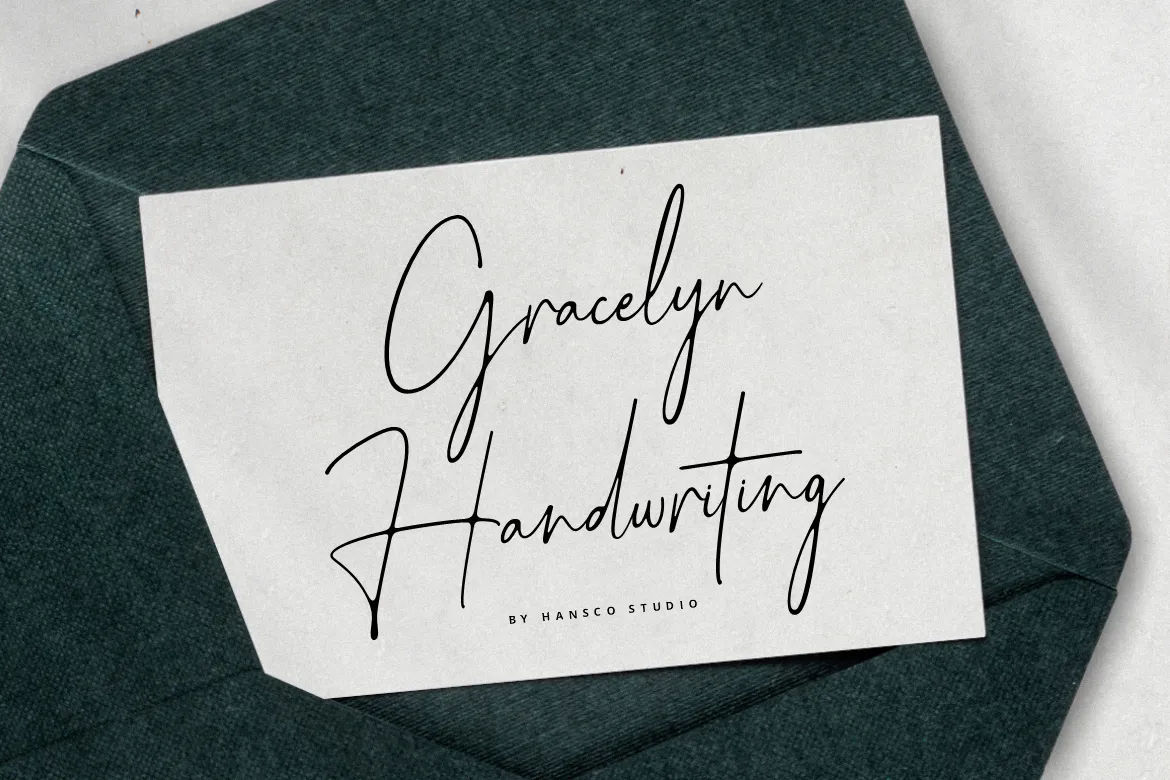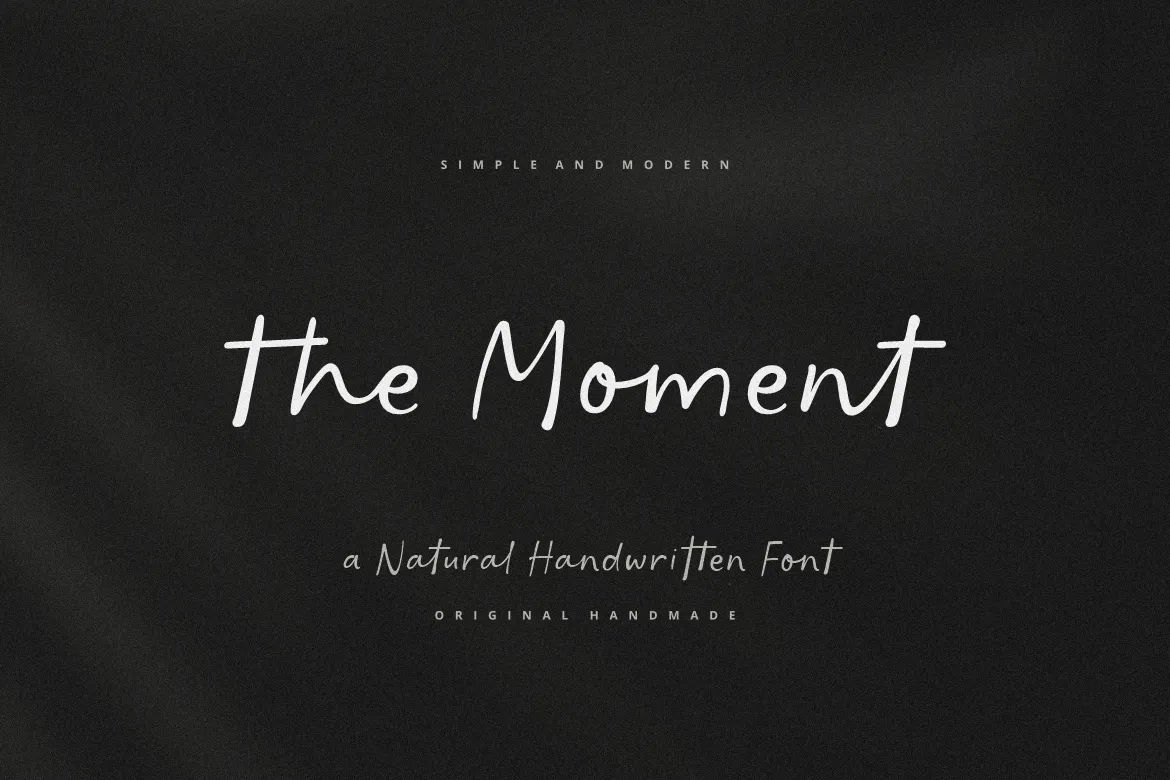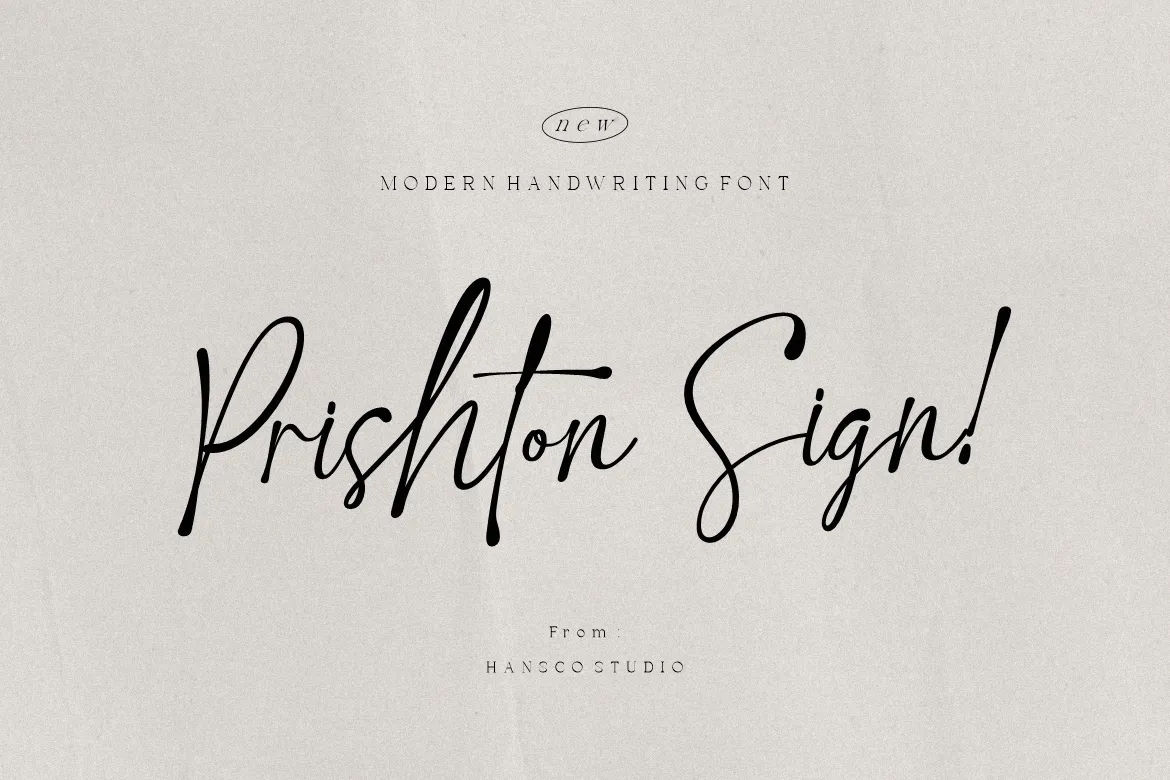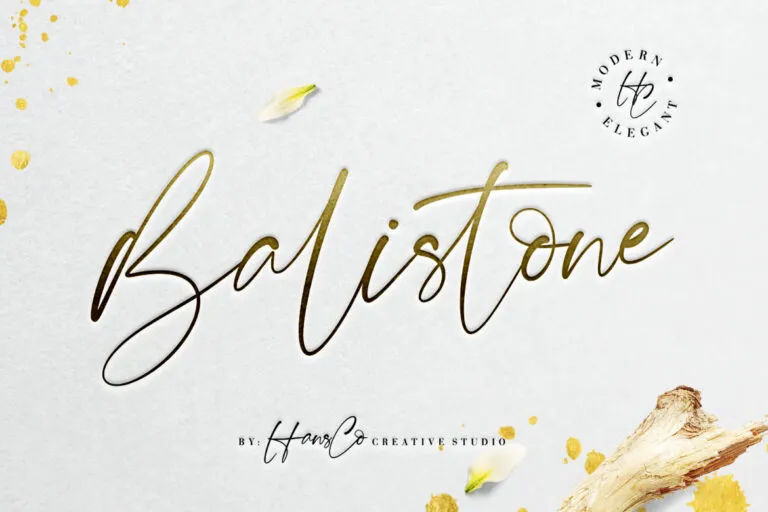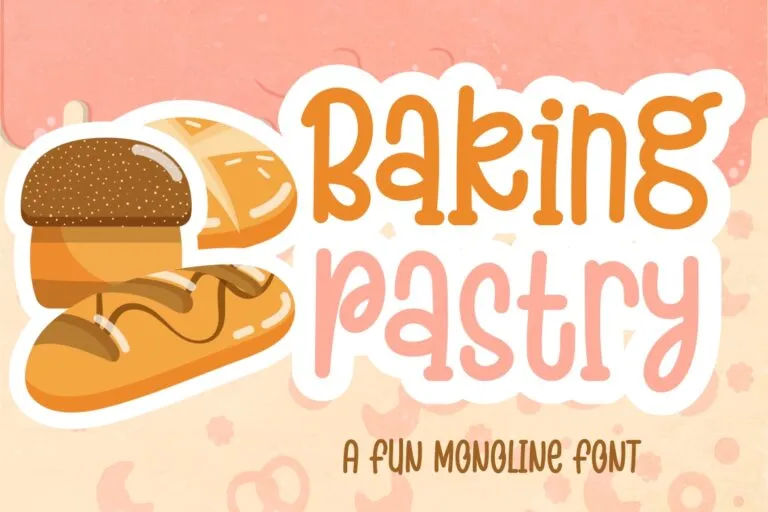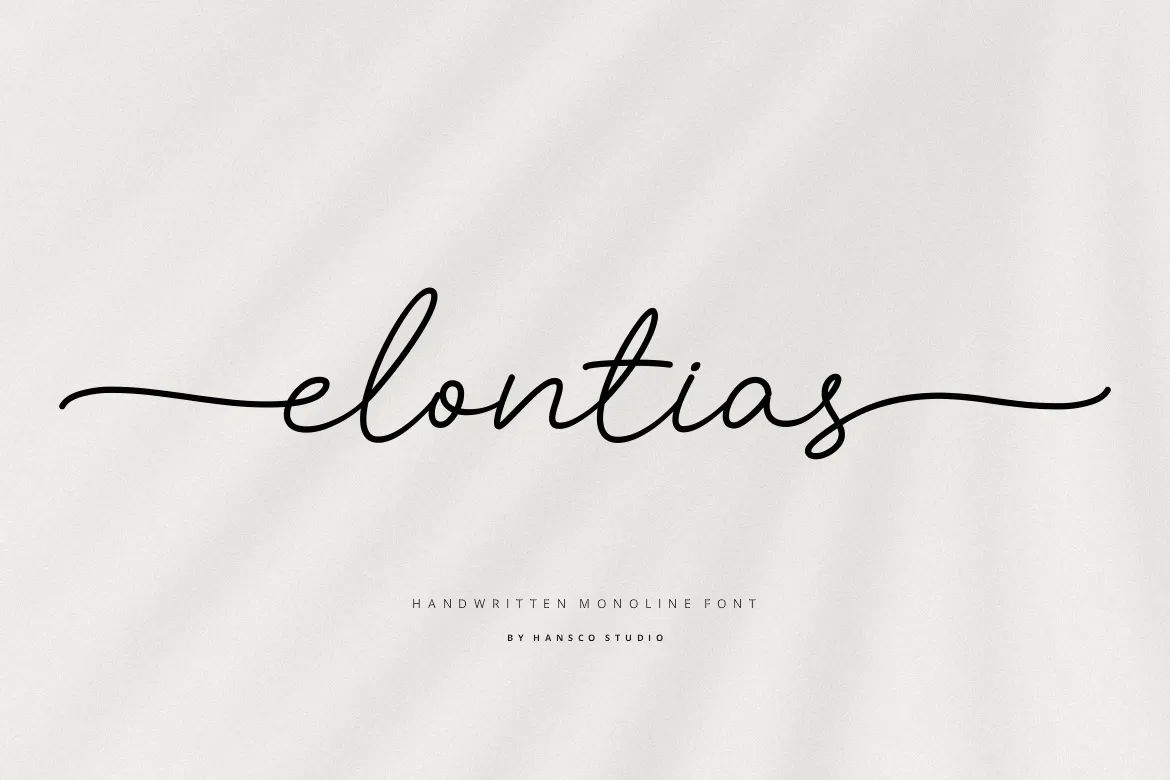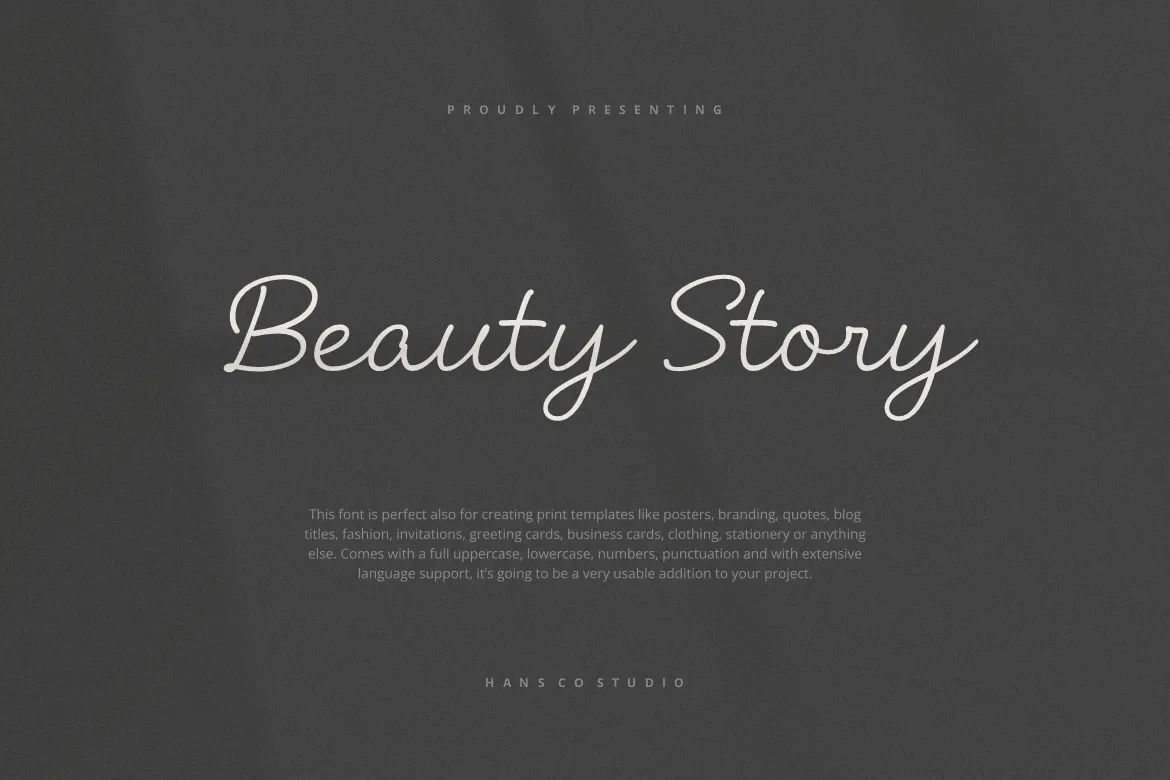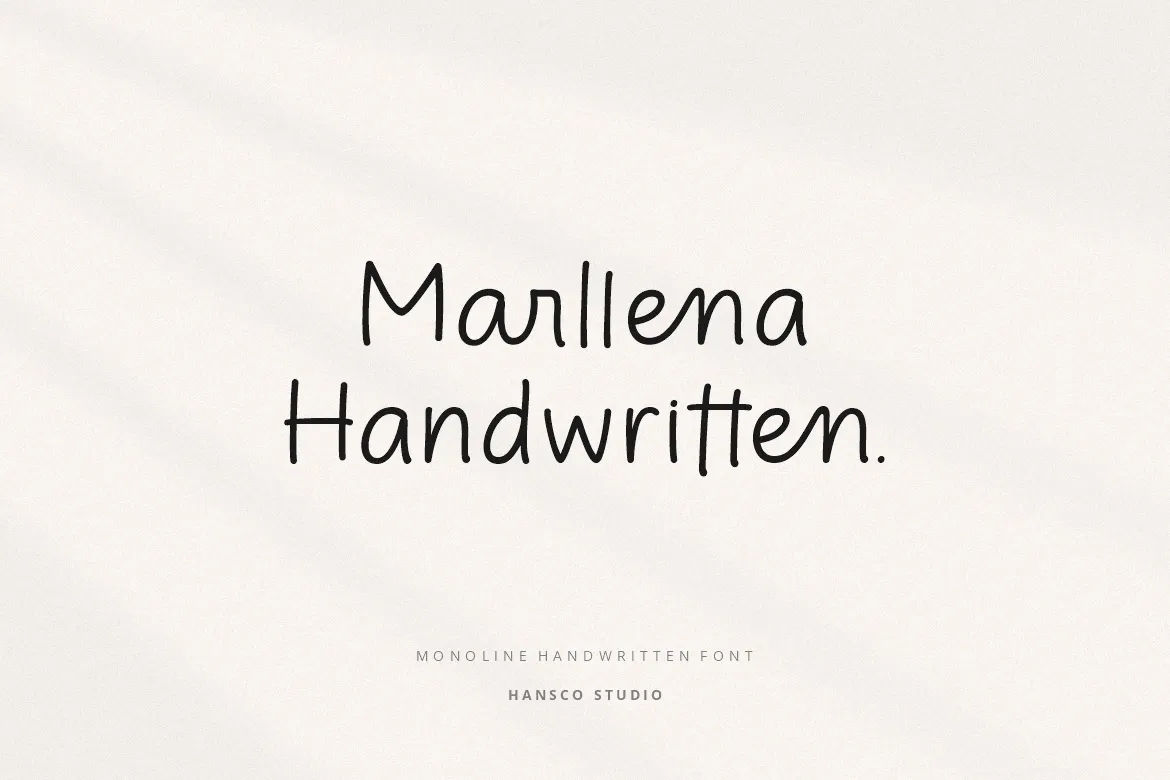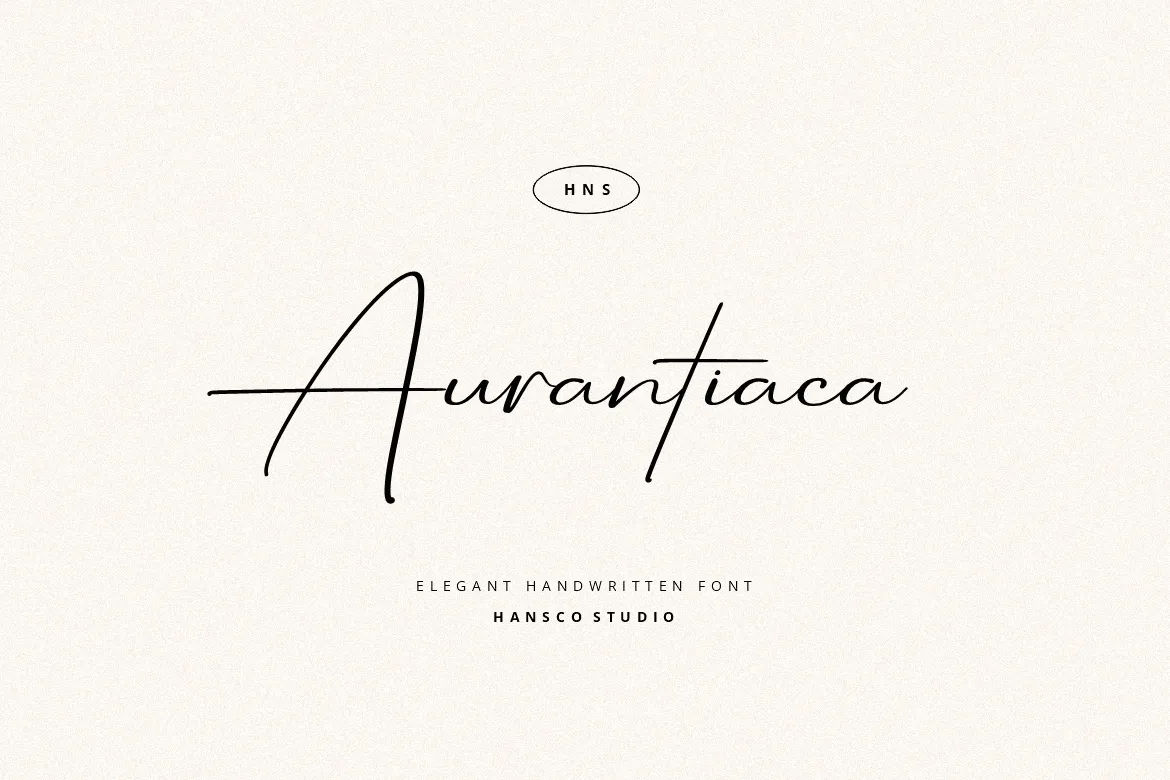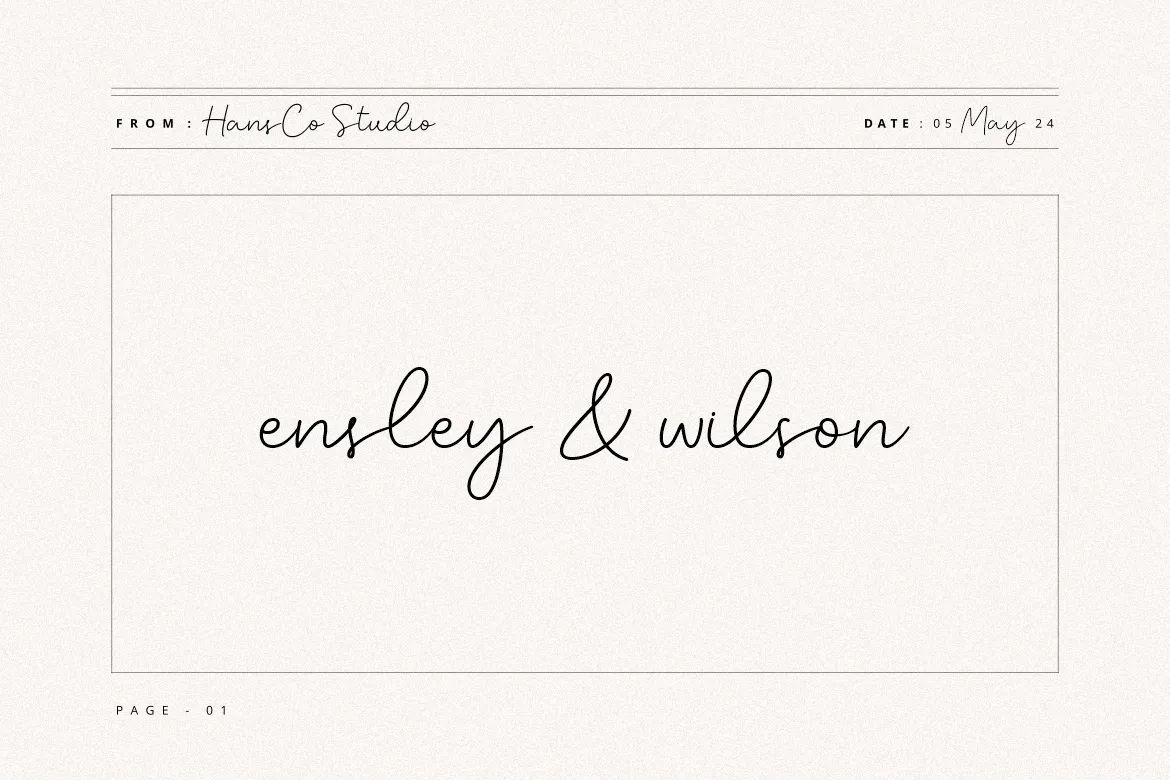
The best handwriting font options replicate natural penmanship, adding a warm feel to your project and creating perceptions of human presence. Handwritten elements are perceived as more personal and effortful, which increases emotional engagement from viewers. Building on these findings, designers increasingly turn to handwritten styles to create visuals that feel more authentic and emotionally resonant.
1. Gracelyn
Gracelyn brings an elegant handwritten character that enhances posters, quotes, blog titles, fashion layouts, and other expressive creative projects.
2. Elontias
Crafted with smooth handwritten detail, Elontias fits effortlessly into social content, print templates, business cards, and a variety of creative projects.
3. Beauty Story
Beauty Story offers a clean, charming handwritten style perfect for Instagram, DIY crafts, branding, and stationery, supported by complete character sets and multilingual coverage.
4. Marllena
With its soft curves and elegant personality, Marllena adds a distinctive handwritten warmth to posters, quotes, stationery, and digital content, supported by complete glyphs and multilingual coverage.
5. Aurantiaca
Aurantiaca’s graceful handwritten character adds subtle sophistication to projects like blog titles, greeting cards, fashion layouts, and creative branding.
6. Ensley Wilson
Ensley Wilson brings a lively handwritten bounce that brightens Instagram posts, invitations, posters, and any creative project needing a fun personal touch.
7. Natalie Photograph
Natalie Photograph’s delicate, flowing character adds understated elegance to invitations, quotes, business cards, and modern digital projects.
8. Lemontine
Lemontine delivers a stylish handwritten finesse suited for high-end design needs, from signature branding to elegant editorial and lifestyle visuals.
9. Cathelia
Infused with graceful hand-drawn character, Cathelia elevates creative compositions like editorial graphics, personal branding, and crafted stationery.
10. Hilton Fontain
Hilton Fontain’s gently irregular curves create a charming handwritten identity that enriches fashion layouts, greeting cards, and creative digital work.
11. The Moment
The Moment delivers a graceful handwritten rhythm ideal for stylish branding, charming social visuals, and carefully crafted print templates.
12. Prishton Sign
Prishton Sign’s poised, natural handwriting style lends subtle sophistication to stationery, fashion graphics, greeting cards, and digital visuals.
13. Happiest
Happiest is friendly, modern handwriting designed for vibrant branding, trendy Instagram visuals, and colorful DIY print templates.
14. Bali Indonesia
Bali Indonesia delivers a soft, welcoming handwritten look that enhances greeting cards, social media visuals, and everyday creative designs.
15. Great Notes
Great Notes is a versatile handwritten font with regular and bold styles, perfect for branding, packaging, social content, and creative design projects.
16. Balistone
Blending feminine handwriting with modern polish, Balistone adds character and emotion to posters, stationery, branding, and digital content.
17. Baking Pastry
Baking Pastry is a fun, cute handwritten font with clean lines, suited for greeting cards, social media posts, stationery, posters, and playful creative projects.
18. Glastia Monoline
Glastia Monoline blends modern handwriting with calligraphic touches for posters, branding, greeting cards, and polished creative work.